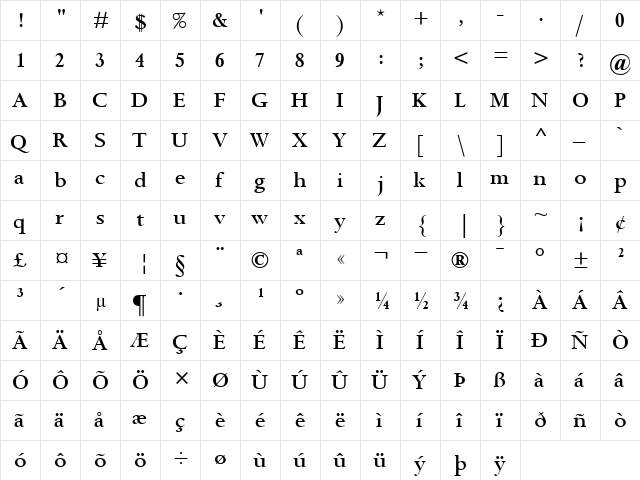
SpectrumMT-SemiBold Semi Bold Font Preview
SpectrumMT-SemiBold Semi Bold
Design Context for SpectrumMT-SemiBold Typeface
SpectrumMT-SemiBold offers clean, dependable letterforms without strong stylistic allegiance, making it a practical choice for designers who need flexibility. The heavy weight commands attention and anchors typographic hierarchies.